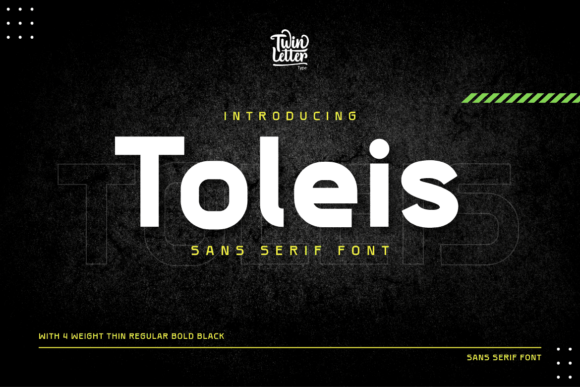
Introducing Toleis Font, the pinnacle of sophistication and elegance in the realm of sans serif fonts. Crafted with meticulous attention to detail by the renowned twinletter, Toleis embodies the essence of modern calligraphy. Its clean lines, graceful curves, and balanced proportions exude an air of timeless beauty, making it the perfect choice for discerning designers seeking to elevate their creative projects.
Immerse yourself in the world of Toleis, where form and function intertwine seamlessly. Whether you're designing captivating book covers that demand attention, crafting visually stunning magazines that leave a lasting impression, or creating social media posts that spark engagement, Toleis is your trusted companion. Its versatility knows no bounds, extending to the realm of invitations and beyond. Unleash your creativity and let Toleis transform your designs into masterpieces that capture hearts and imaginations.
With Toleis as your font of choice, you'll discover a world of endless possibilities. Its minimalist aesthetic and clean vibe blend effortlessly with diverse design styles, allowing you to make a statement without overpowering your content. Embrace the power of simplicity and let Toleis elevate your designs to new heights of sophistication.
Join the ranks of creative visionaries who have discovered the magic of Toleis. From book covers that captivate readers to social media posts that ignite conversations, Toleis has proven its prowess in a myriad of applications. Experience the difference that a truly remarkable font can make, and elevate your designs to the realm of the extraordinary.